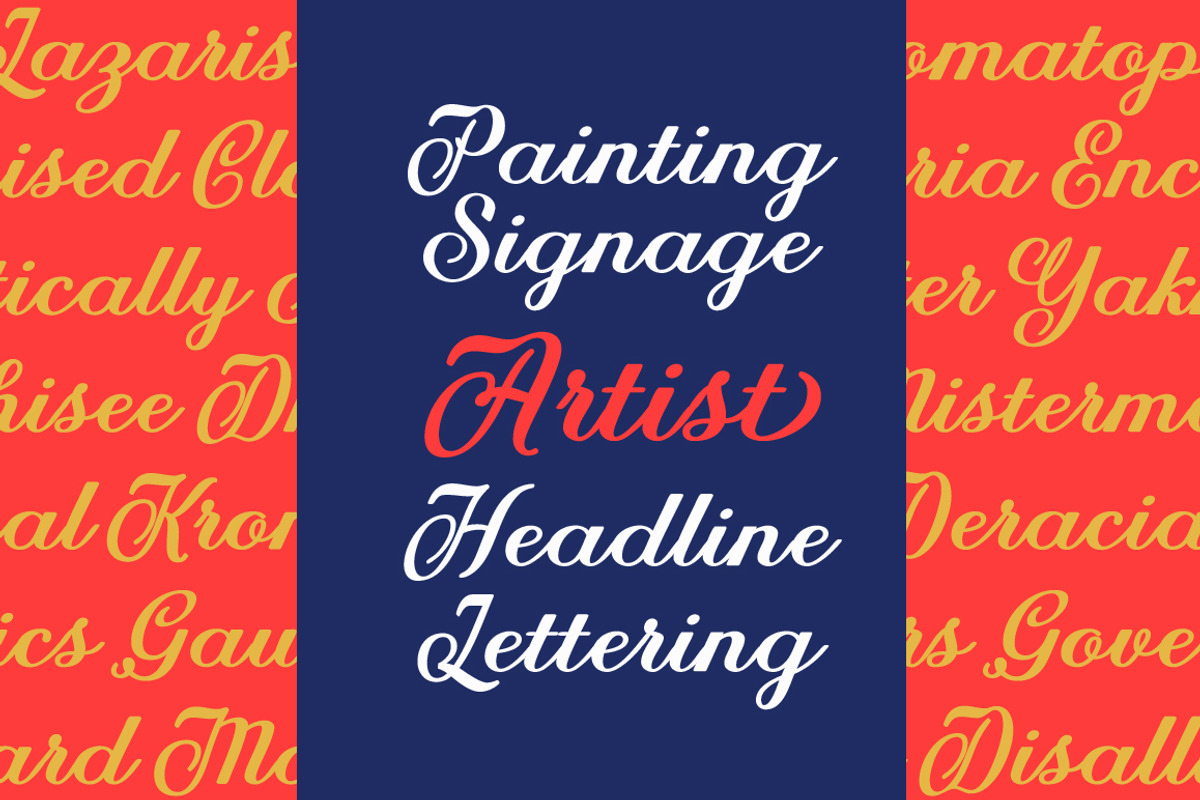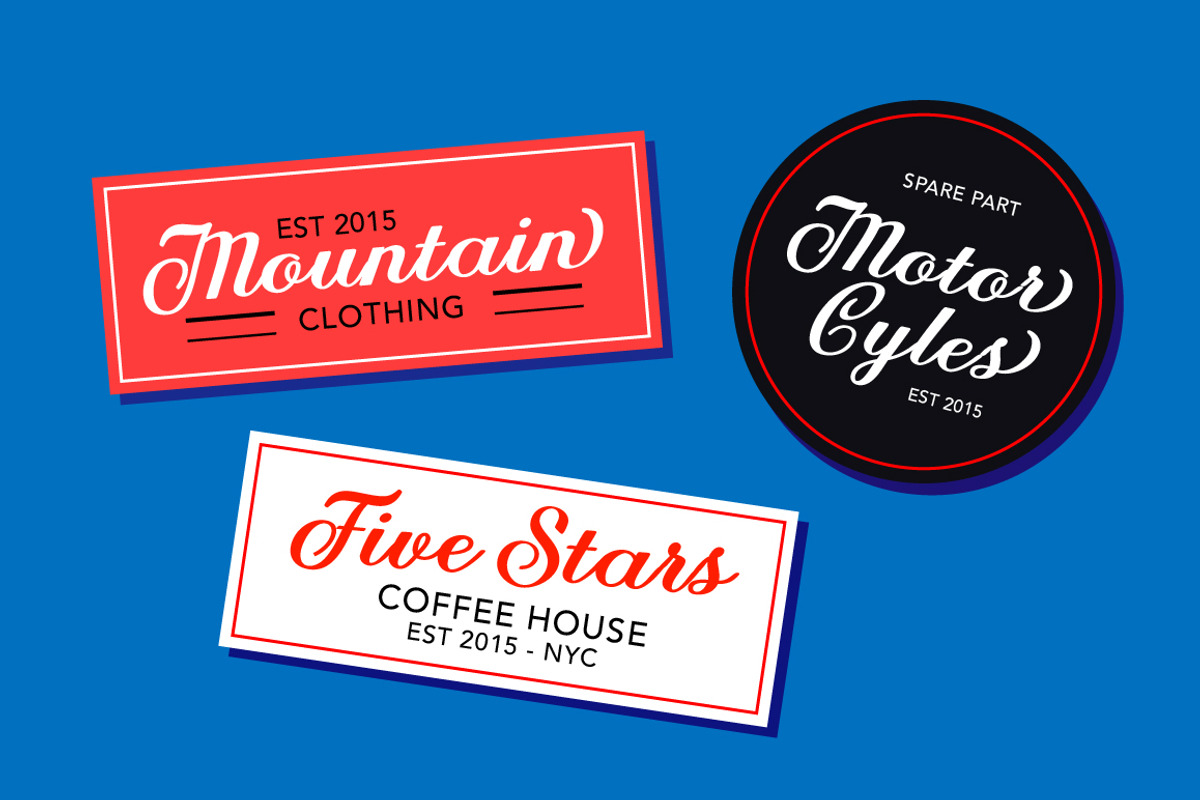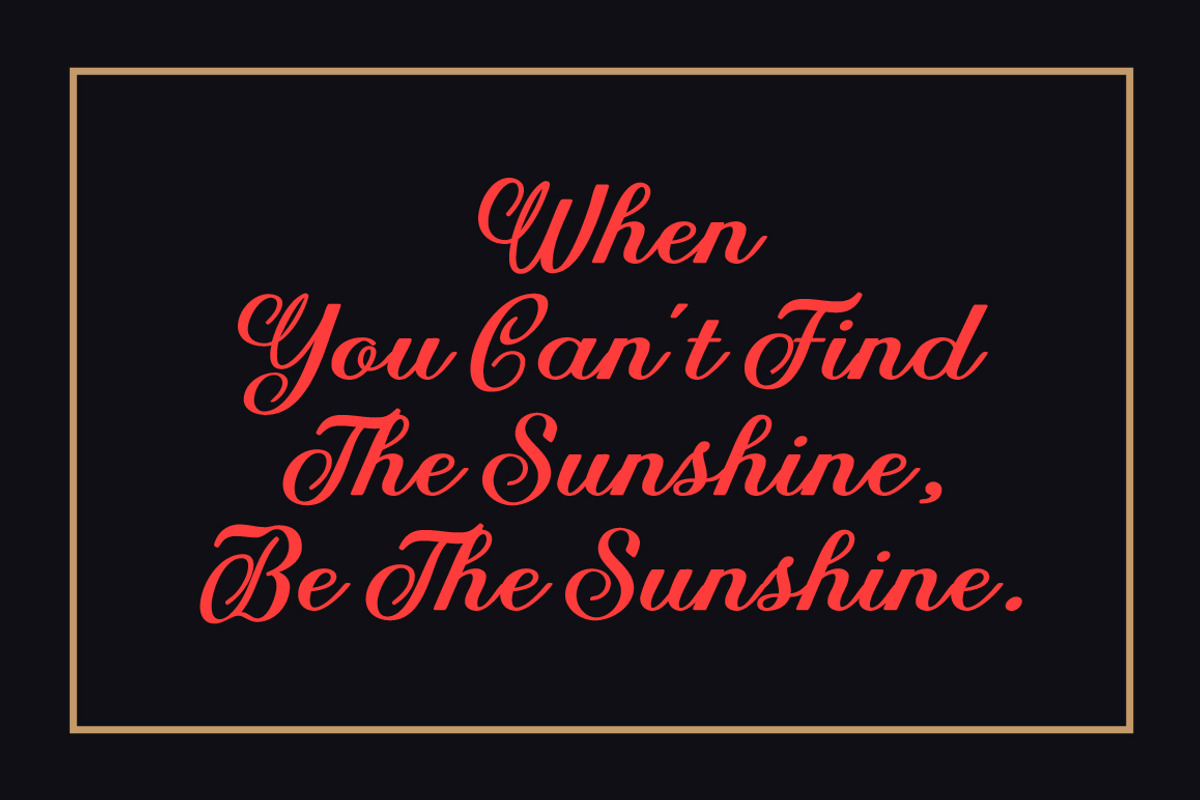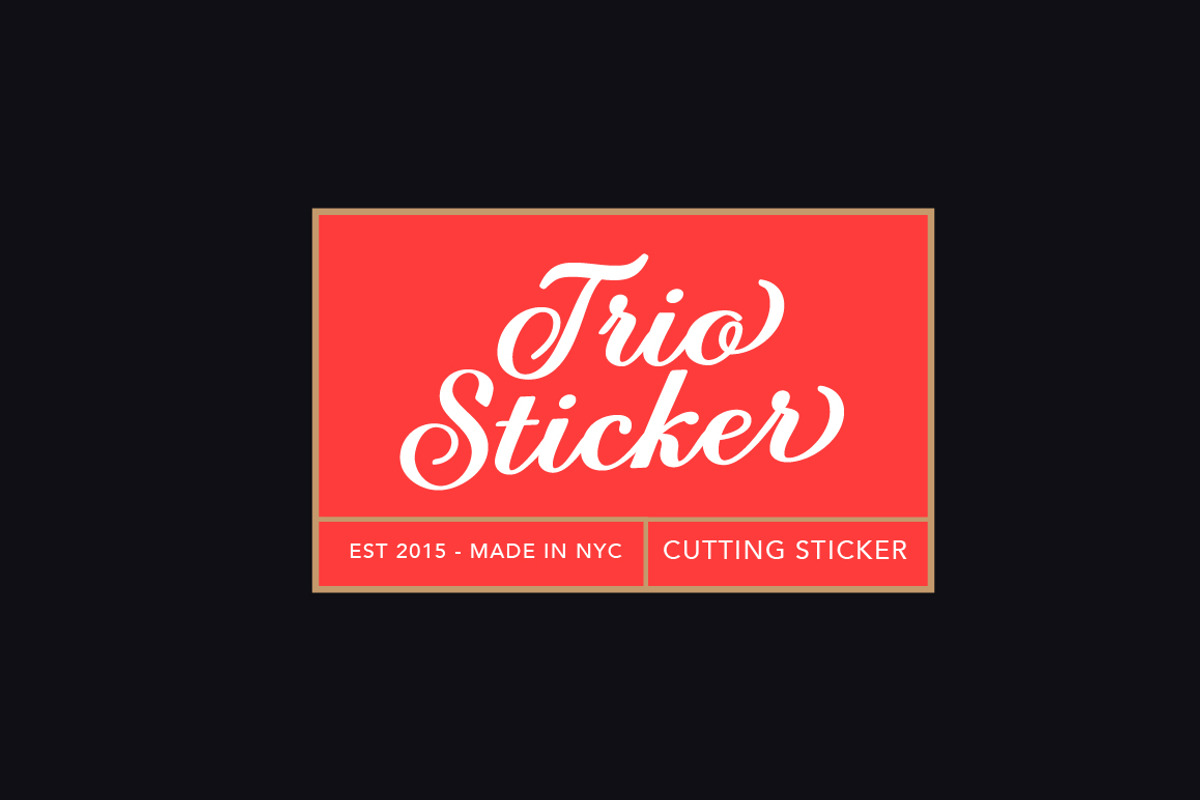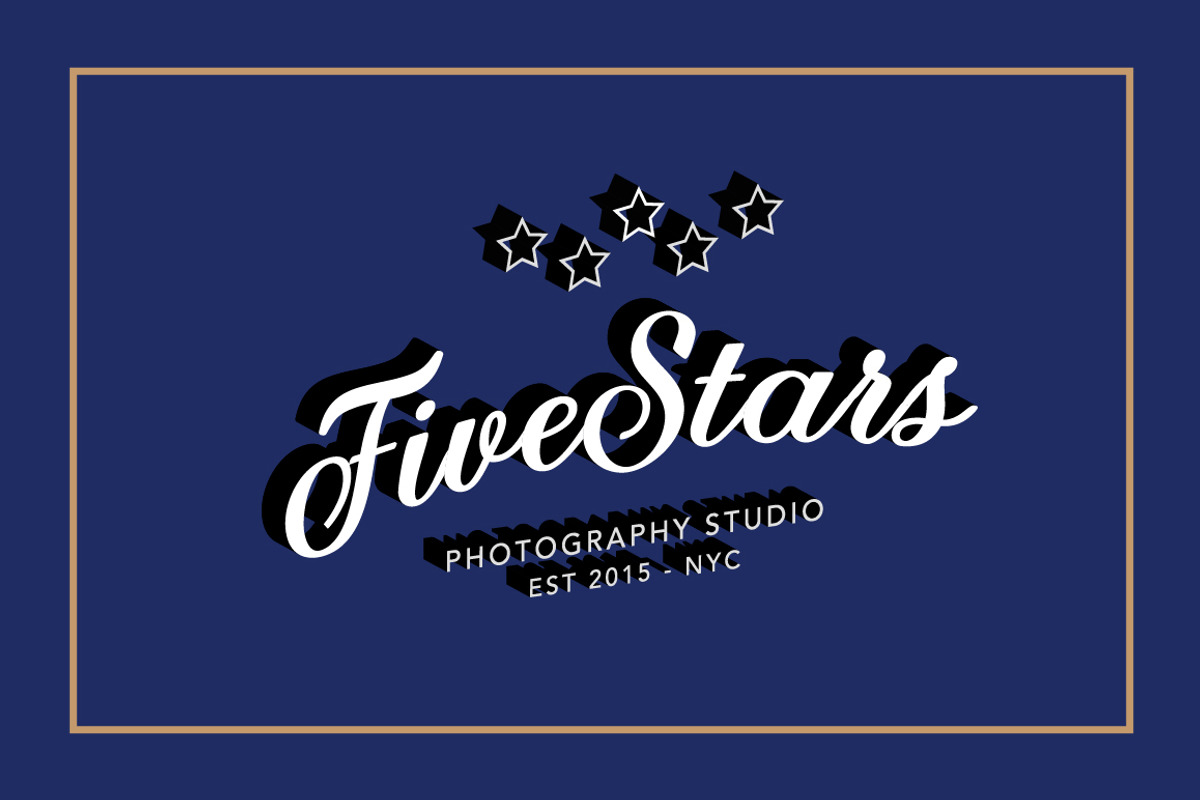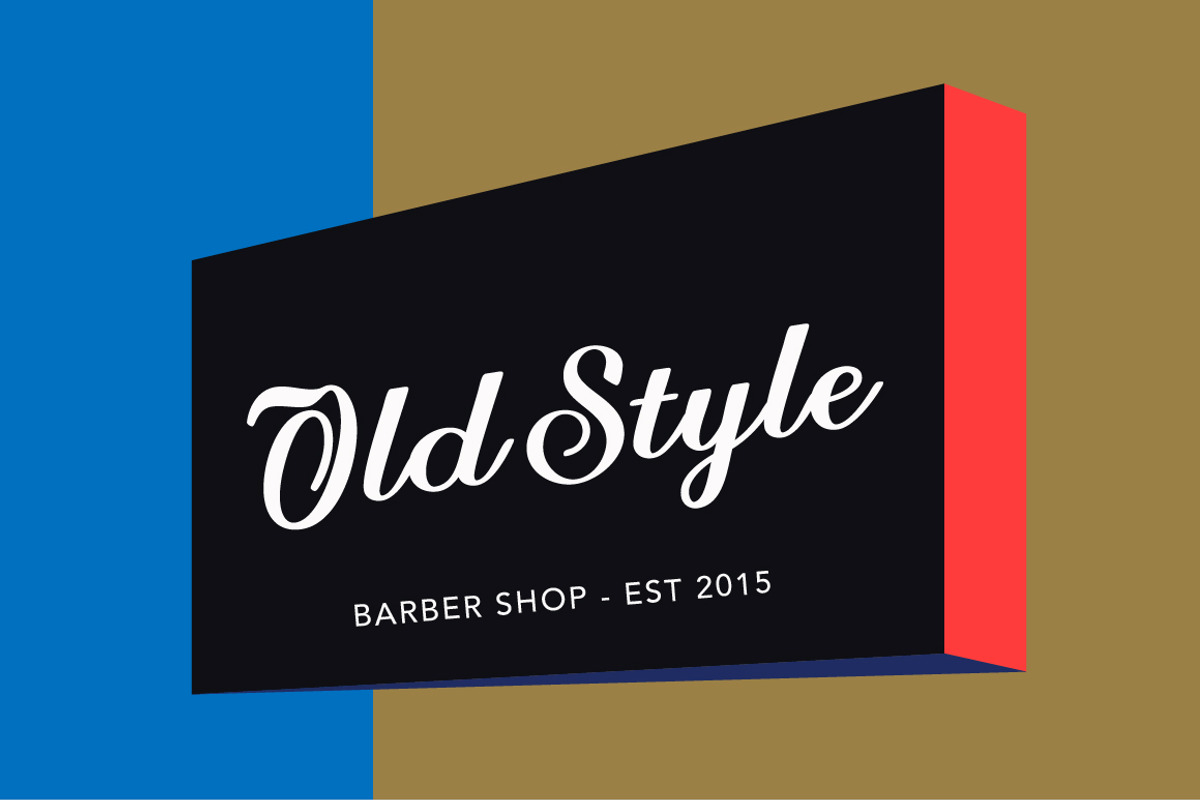
Achelan Script
Achelan Script is highly legible font, get touch of a bold, classic and fun vintage script font, Opentype features with stylistic alternates. Can be used for various purposes. such as posters, t-shirt, signage, logos, news, badges etc. International support for most Western Languages is included.